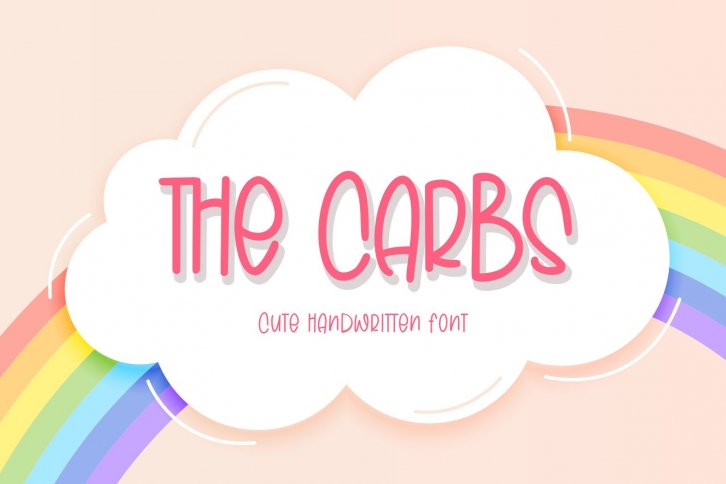
The Carbs Cute Handwritten is a great font that was designed by Maulana Creative. Imagine the amount of combinations you can create using this font! The archive is 11.26 MB and it was released on August 10, 2020. The Carbs Cute Handwritten looks beautiful on wedding invitations, greeting cards, logos, posters, labels, t-shirt designs, logos, business cards and is perfect for use in ink or watercolor works, fashion, magazines, packaging and food menus, children's books and more!